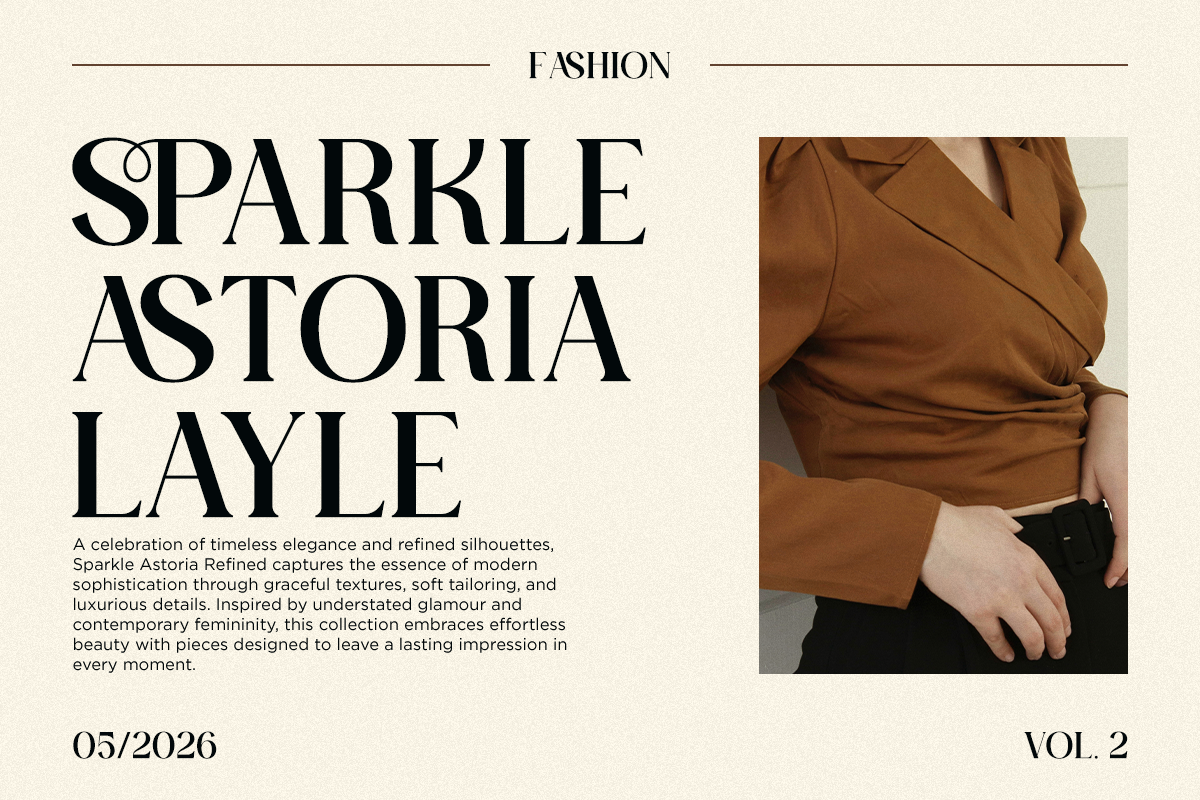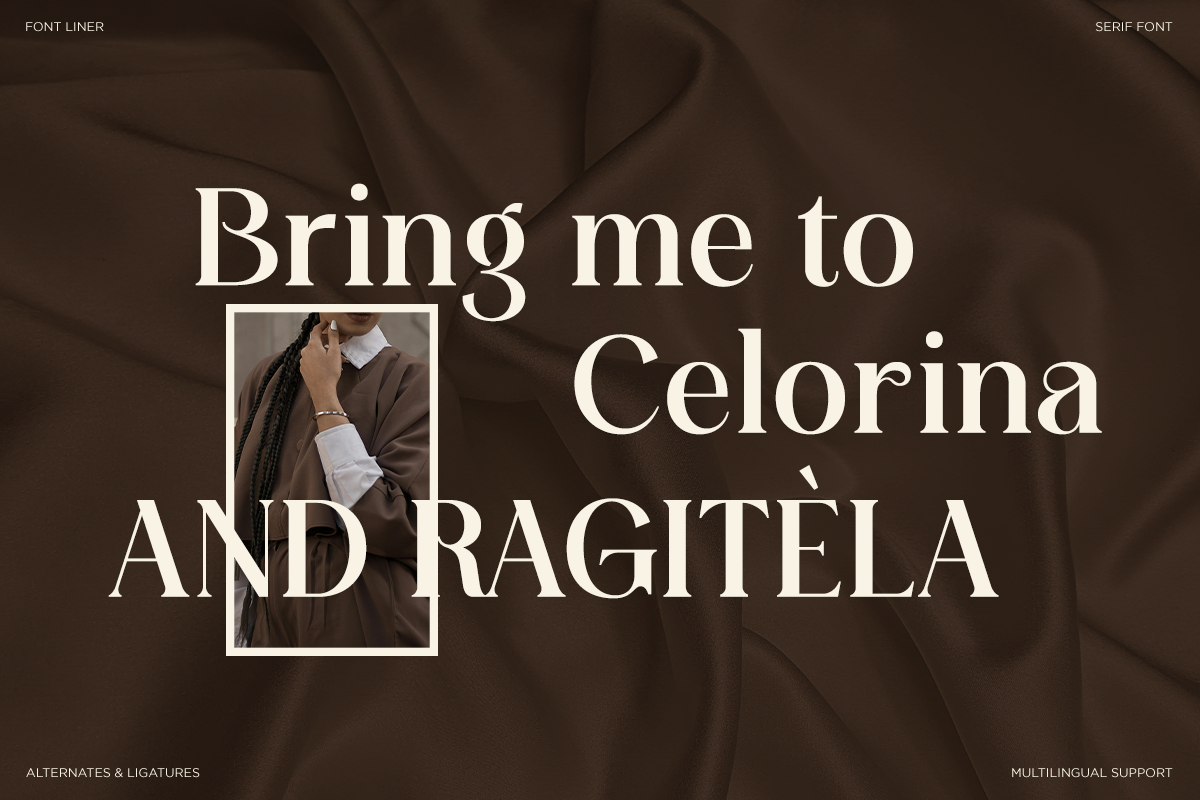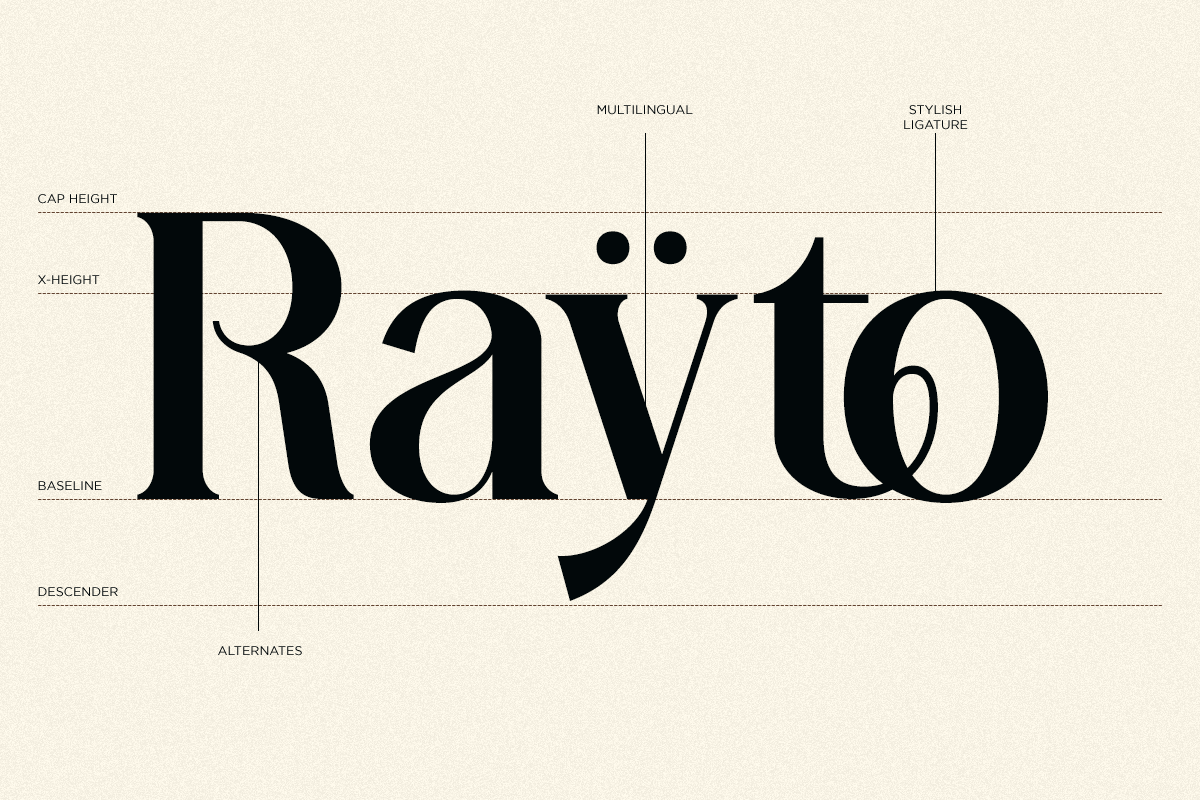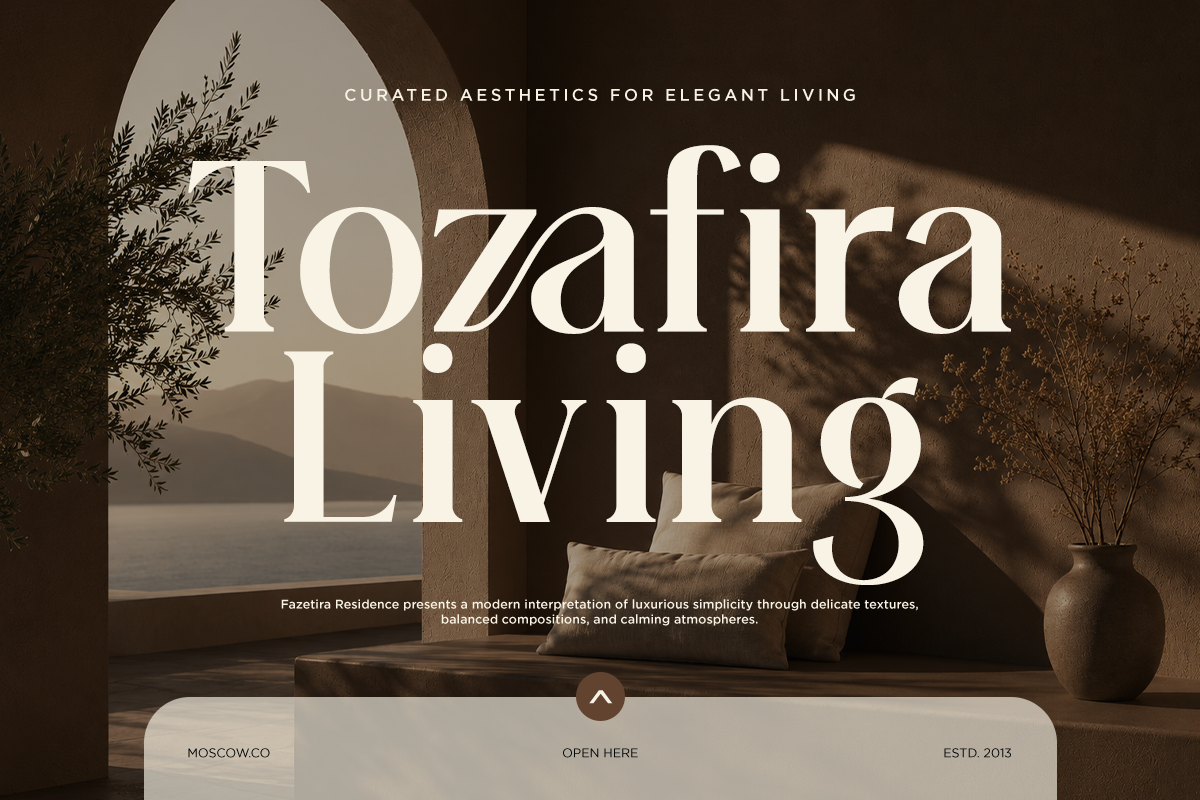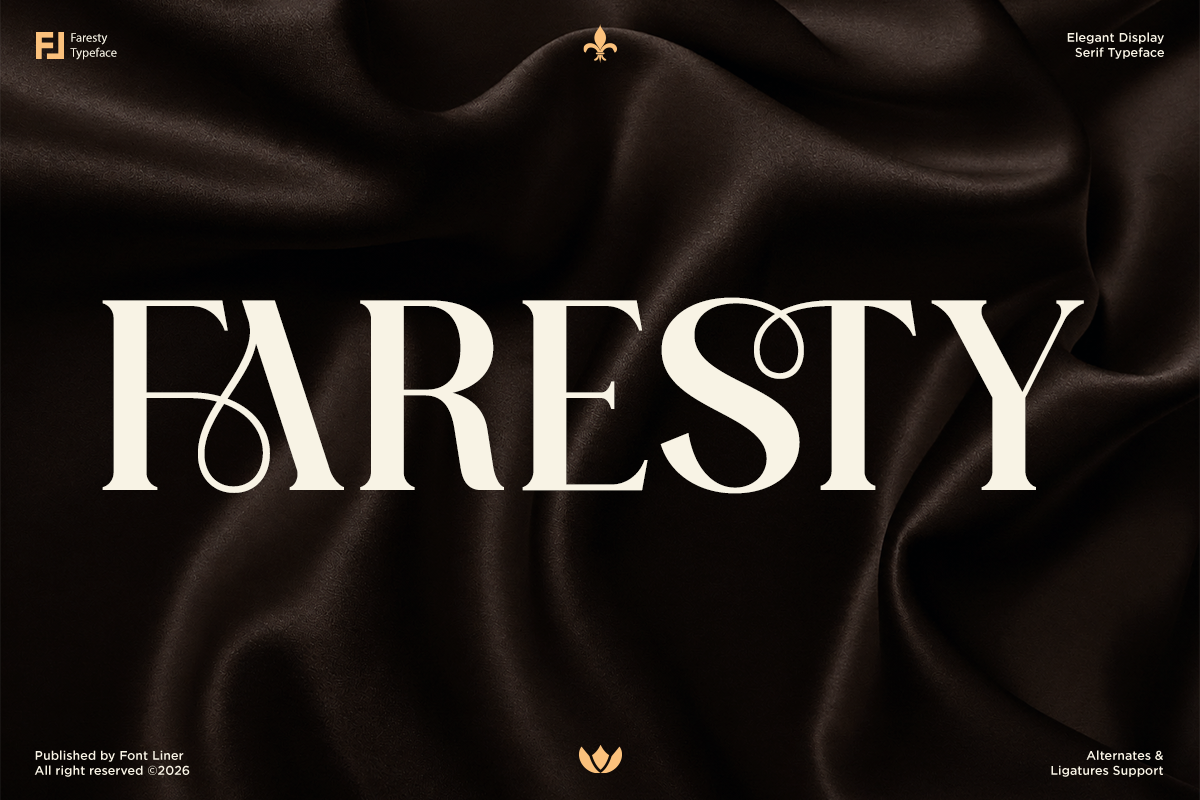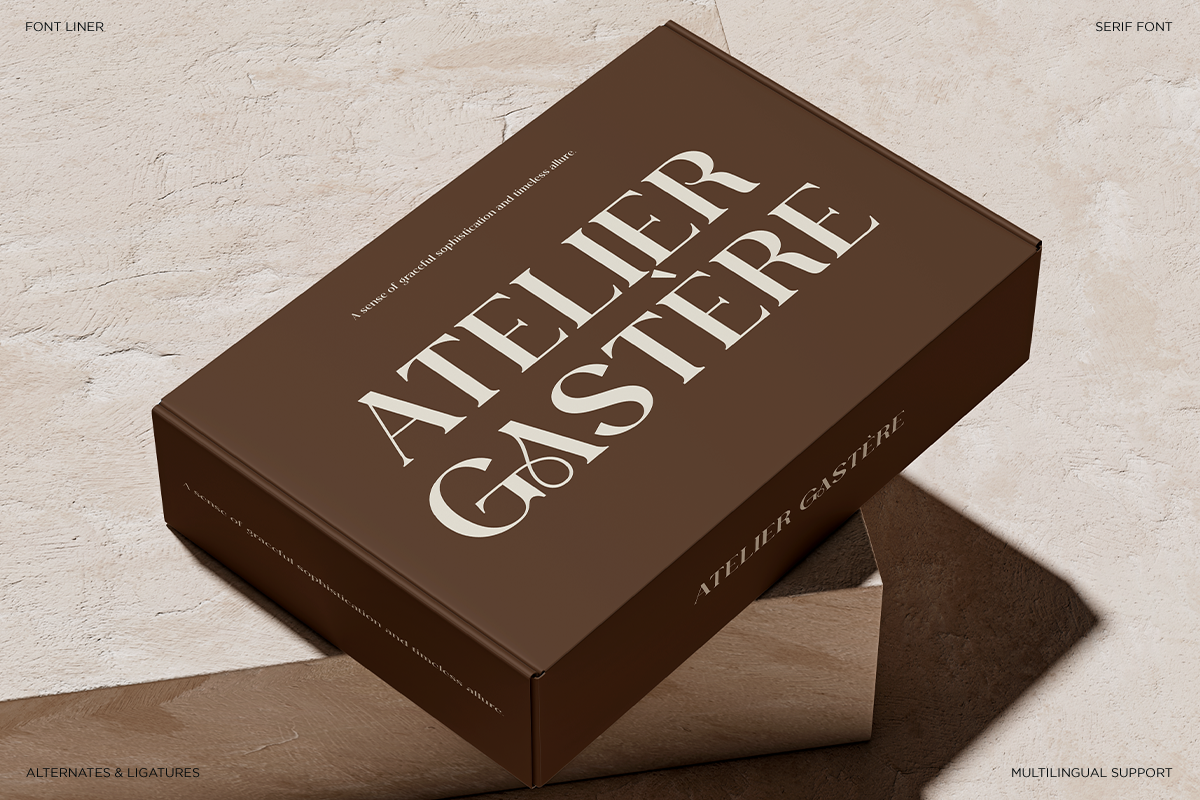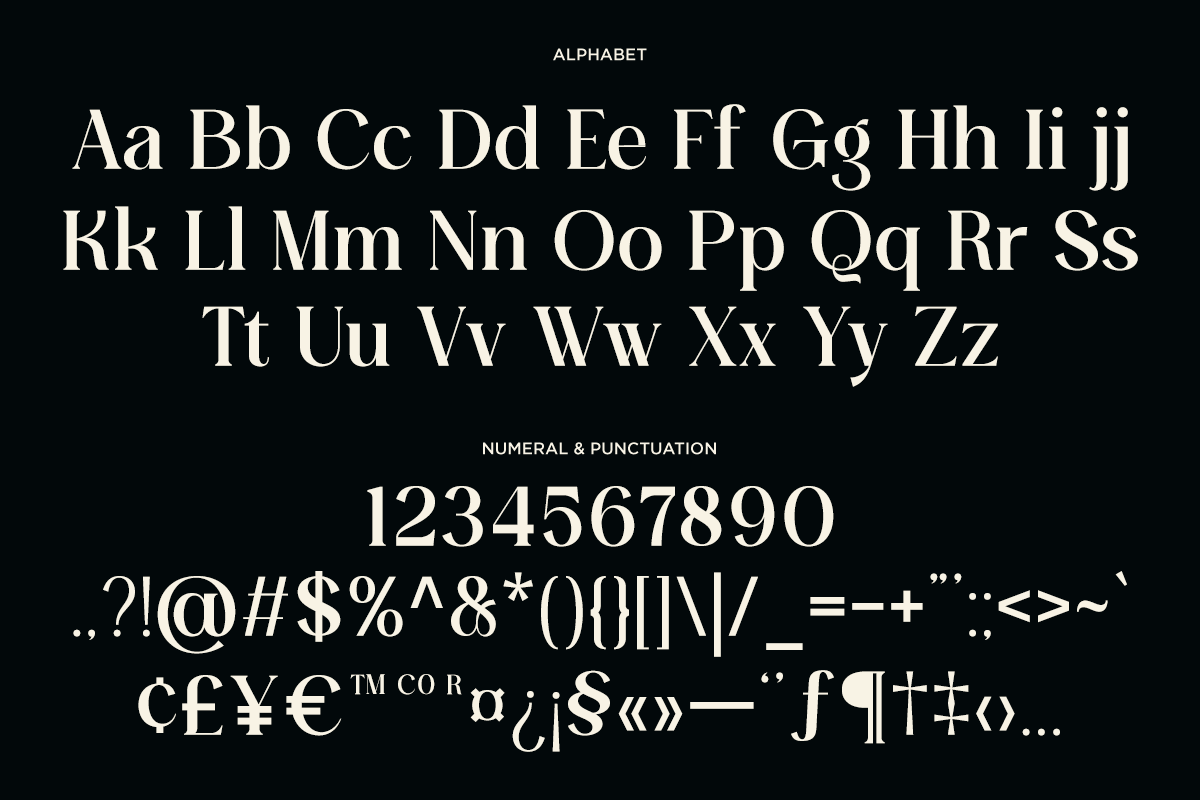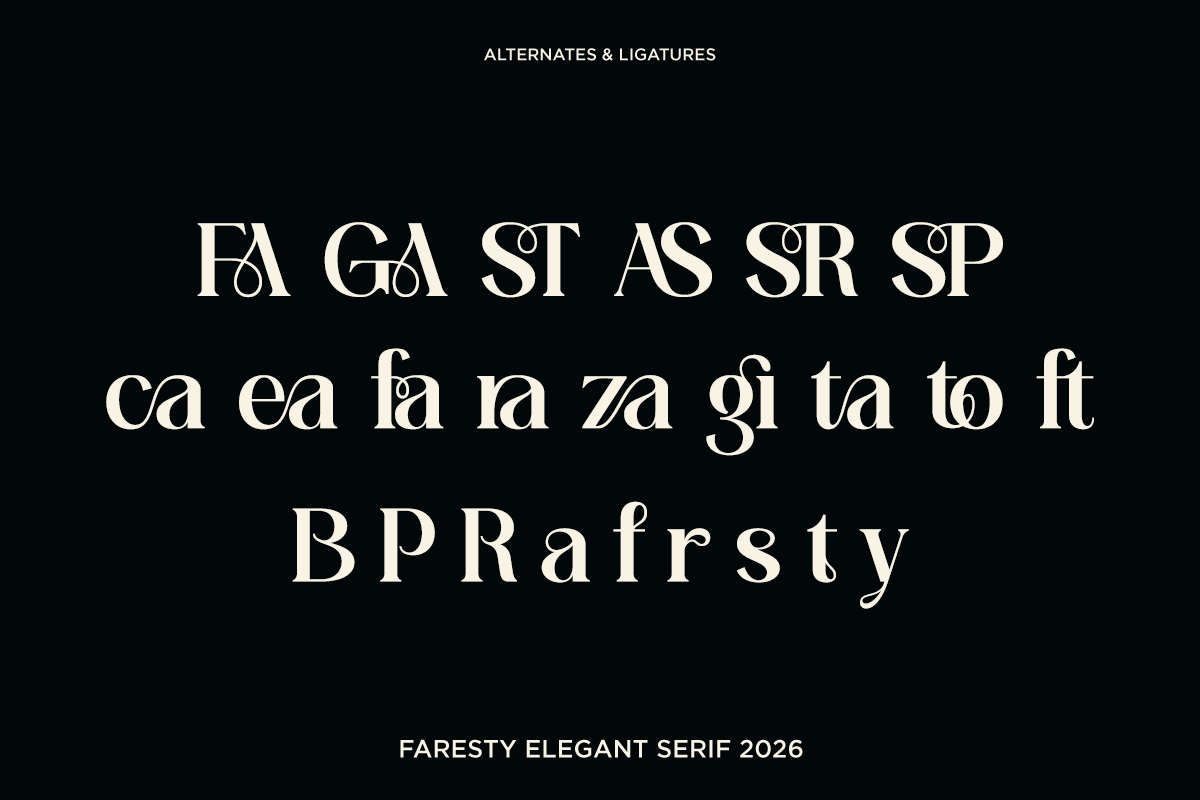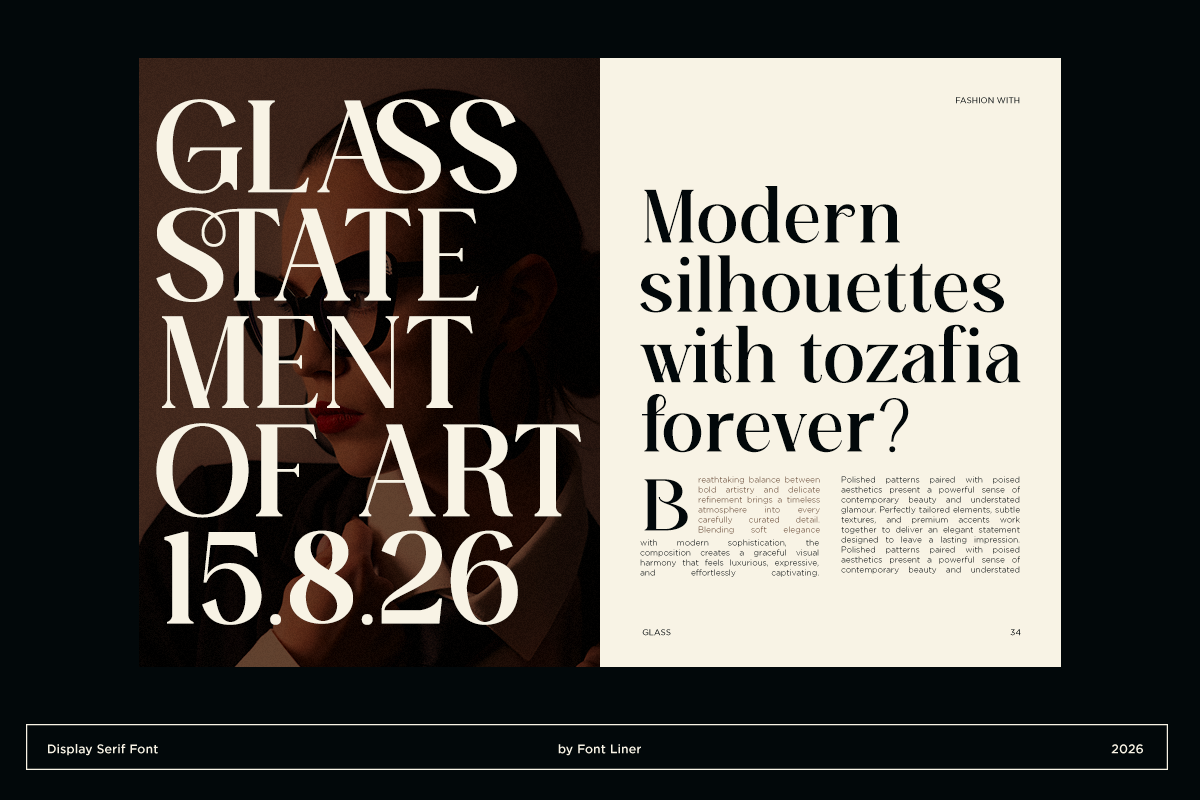
Luxury Ligature Serif Font - Faresty
Faresty is a sophisticated display serif typeface crafted to bring timeless luxury and modern elegance into one refined design. Featuring graceful high-contrast strokes, artistic ligatures, and distinctive decorative alternates, Faresty captures the essence of premium fashion editorials, luxury branding, and upscale visual identities. Every character is carefully designed to create a harmonious balance between classic sophistication and contemporary style.
Inspired by the world of haute couture, luxury magazines, and premium lifestyle brands, Faresty delivers a strong visual presence that instantly elevates any project. Its unique ornamental details and elegant curves make it perfect for creating memorable logos, stylish packaging, striking headlines, and refined marketing materials. Whether used in large display settings or premium branding applications, Faresty provides a distinctive and prestigious aesthetic that stands out effortlessly.
Faresty perfect for fashion brands, beauty products, jewelry collections, wedding invitations, luxury hotels, editorial layouts, cosmetic packaging, boutique businesses, and high-end branding projects. Faresty is the ideal choice for designers seeking a serif typeface that combines elegance, exclusivity, and artistic expression into a truly captivating visual experience.
Regular and Italic Style
Stylistic Ligatures